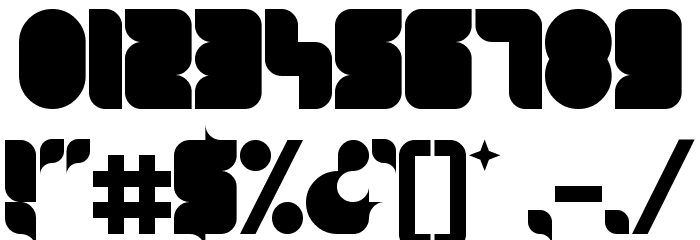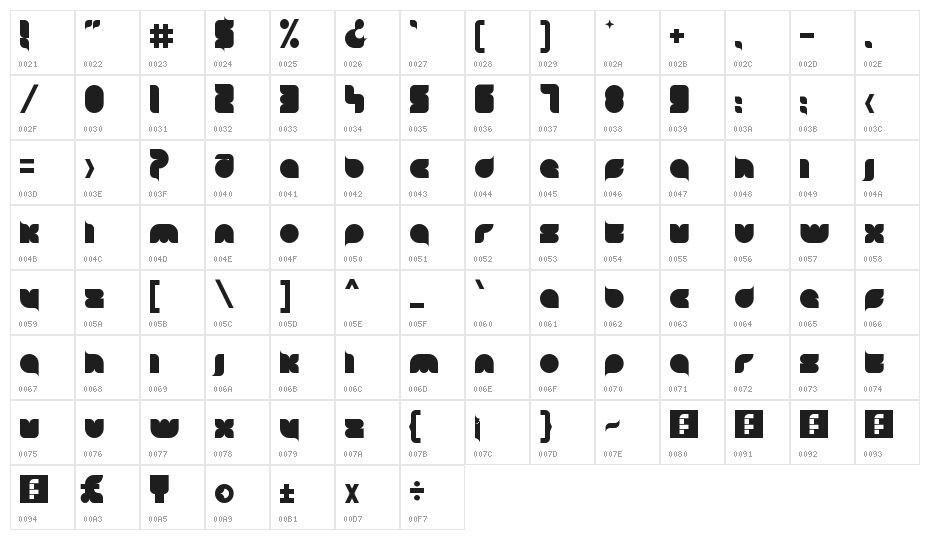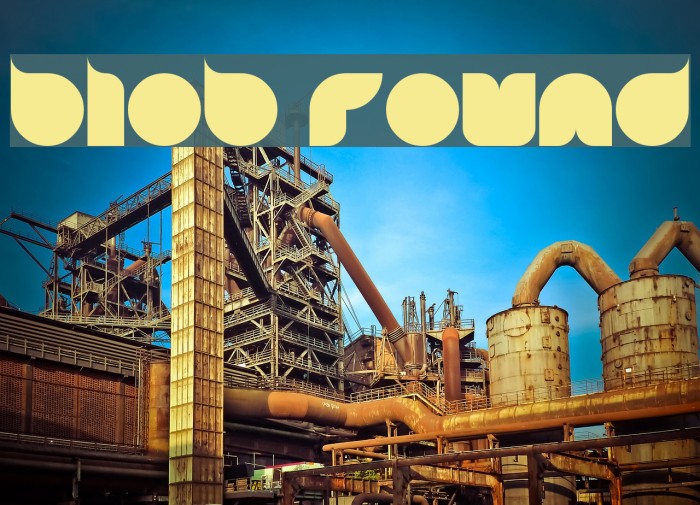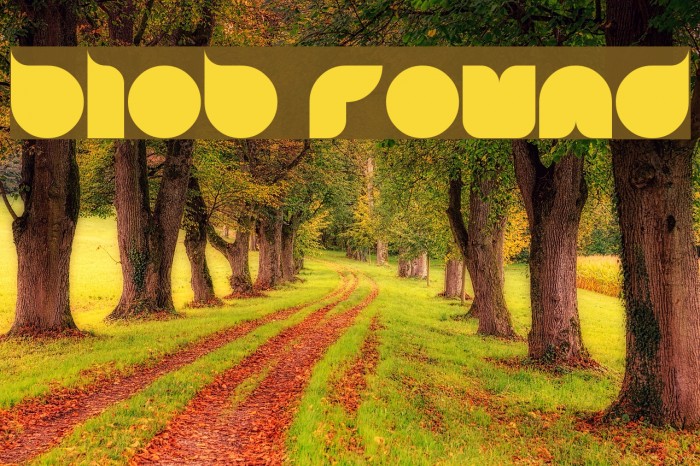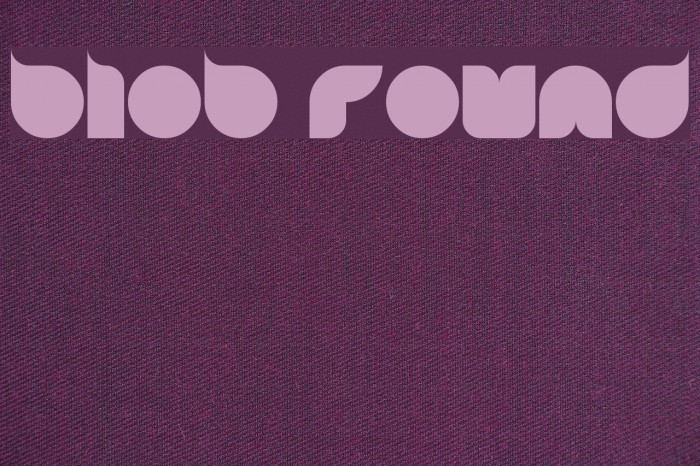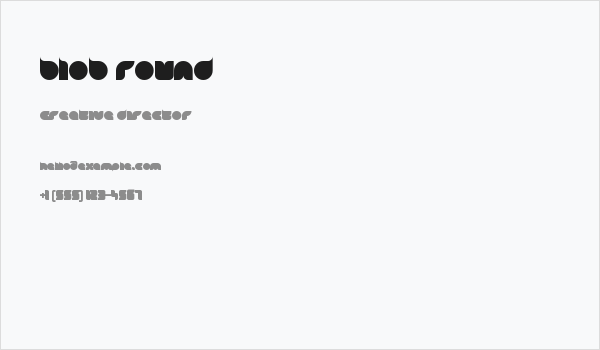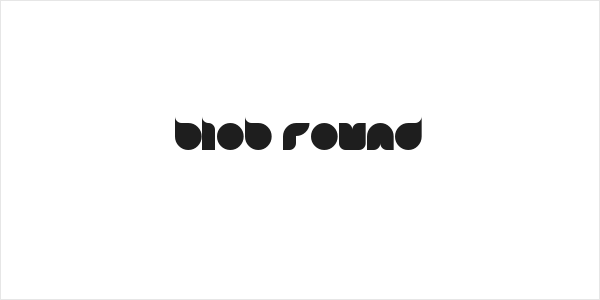
blob round Font
blob round Description
This font features a bold and rounded style with a unique geometric flair. Each character is crafted with thick, consistent strokes, creating a strong visual impact. The letters are designed with a playful, modern aesthetic, incorporating rounded edges and a uniform thickness that gives them a cohesive look. The numbers and special characters follow the same design principles, ensuring a harmonious appearance across all glyphs. This font's distinct style makes it stand out, offering a contemporary and artistic feel that is both eye-catching and versatile.